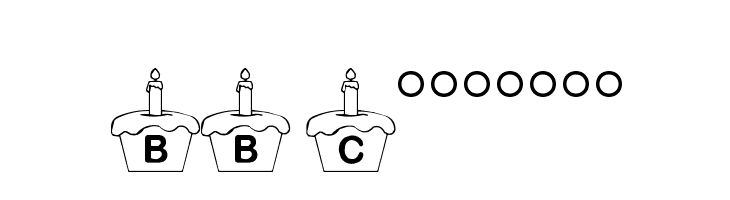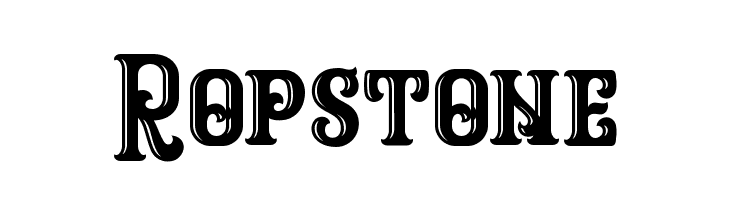
Bienvenue dans Polices Populaires — là où se rencontrent popularité et qualité. Voici les polices les plus téléchargées et utilisées cette année. Pour des choix sûrs (logos, web, social), commencez ici.
Chaque police phare se distingue par équilibre, lisibilité et polyvalence. Vous trouverez des sans‑serifs modernes, des scripts élégantes, des serifs vintage et des displays minimalistes.
A playful, handwritten-style font with a lively and informal appearance.
A spooky, slime-inspired outline font with a playful, eerie aesthetic.
A bold, twisted, and warped font with a playful and dynamic style.
A bold, geometric font with a futuristic and modern aesthetic.
A classic serif font with elegant strokes and sharp serifs.
A bold, textured sans-serif font with a vintage, distressed look.
A modern, clean font with excellent readability and balanced proportions.
A pixelated, retro-style font with a blocky, 8-bit aesthetic.
An elegant, decorative font with intricate vine-like borders around each character.
A playful, decorative font with drip-like extensions and circular cutouts.
A bold, narrow font with elegant curves and strong presence.
A bold, high-contrast font with ornate serifs and dramatic flourishes.
A playful, balloon-inspired decorative font with interconnected circular shapes.
A bold, pixelated font with a retro digital aesthetic.
A decorative font with a blend of modern and vintage styles, featuring bold and whimsical characters.
A bold, left-leaning italic font with angular, modern design.
Highly detailed, zigzag-shaded animal illustrations for decorative use.
An intricate and decorative font with elegant loops and curves.
A dynamic and expressive script font with flowing cursive letterforms.
A bold, futuristic font with angular cuts and a dynamic slant.
A decorative font featuring detailed mythological and fantasy-themed illustrations.
Casual handwritten script font.
A bold, playful, and condensed font with a twisted, dynamic style.